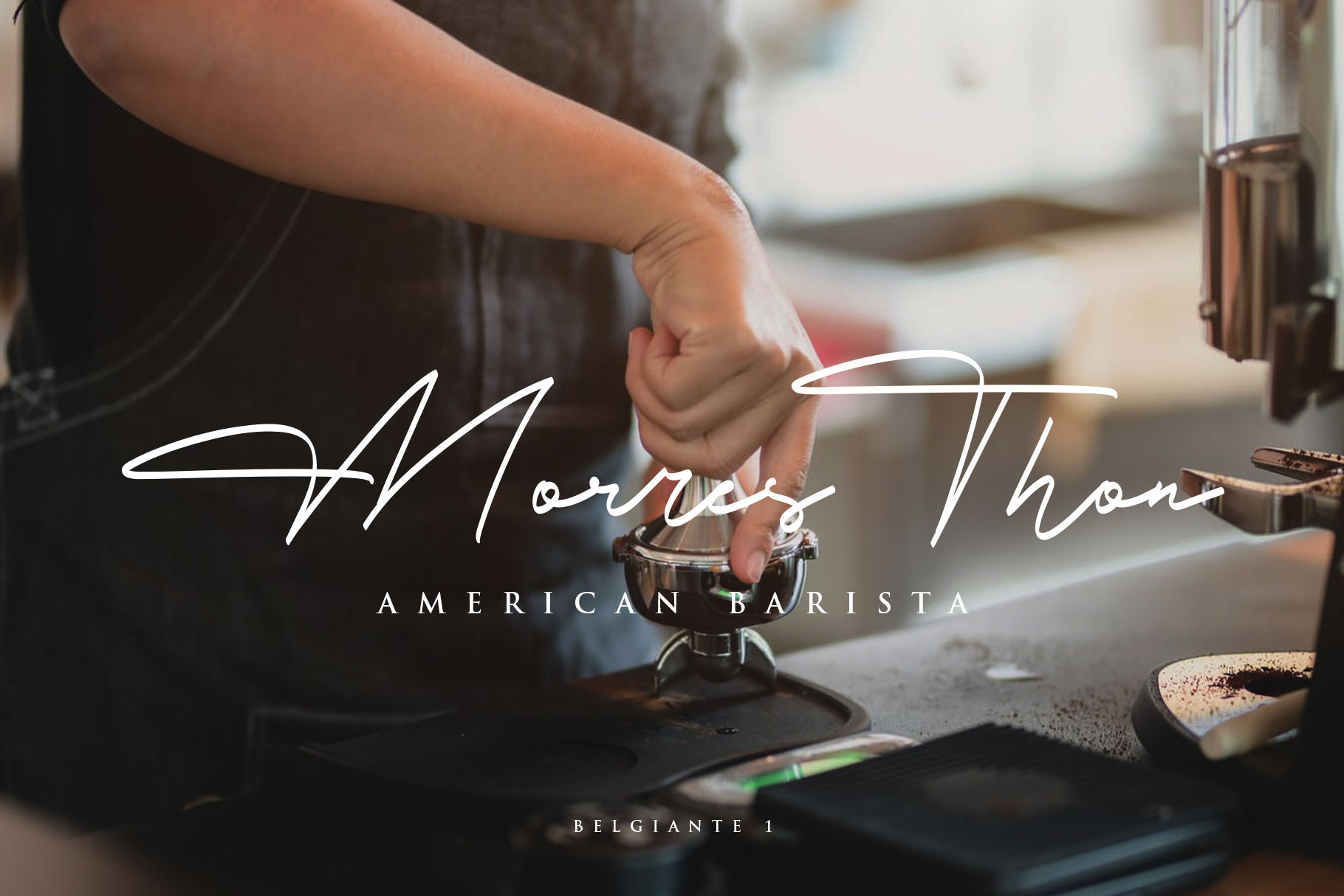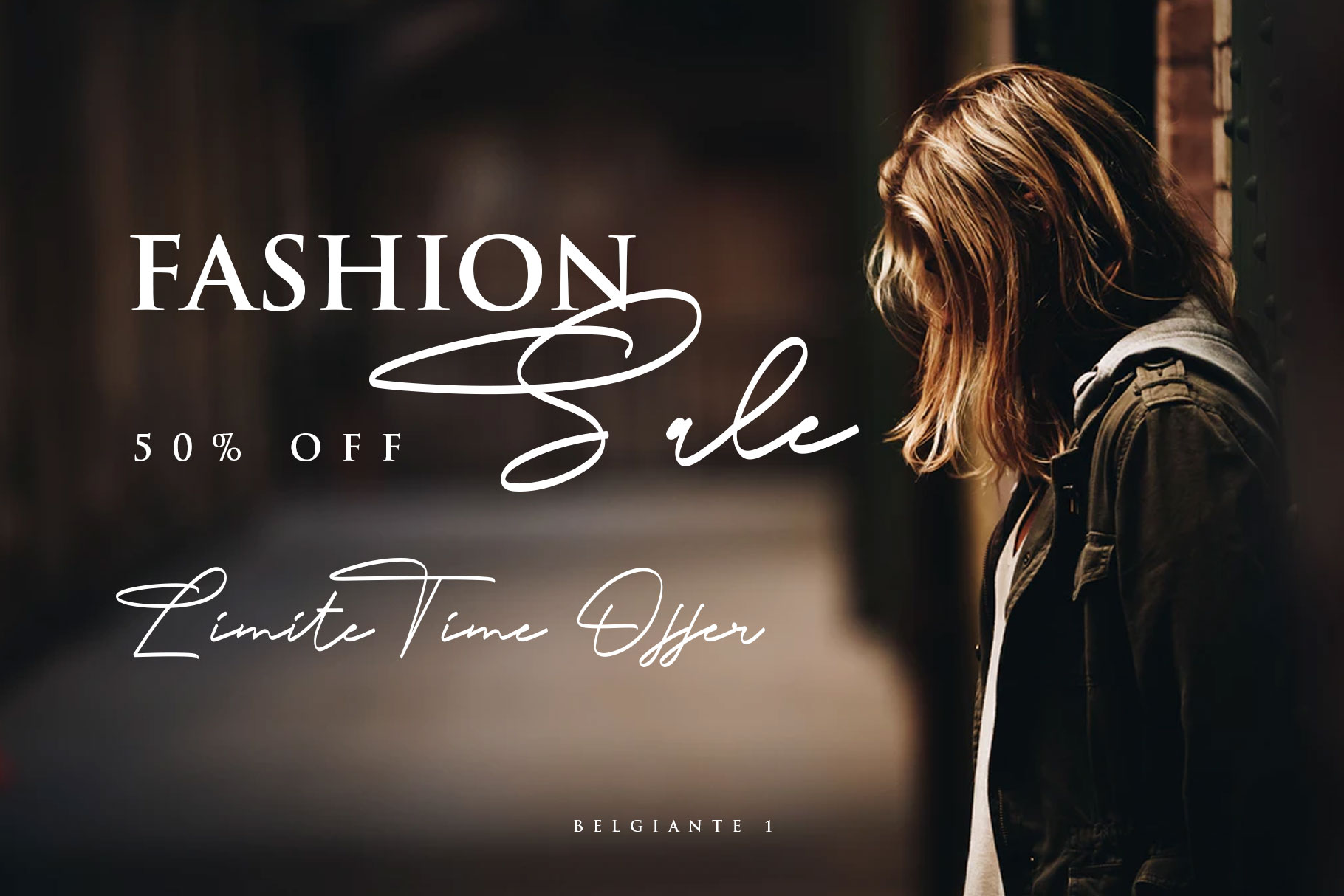
Belgiante Handwritten Font
Belgiante is modern style which can be interpreted professional. I make bergiante in two version you can choice what u want also i keep this font looks classy, readable, stylish, catchy and easy to use. Belgiante is the great choice for watermark on photography, signature or signature logo design, quotes, album cover, business card and many other design project. Belgiante is here to make your work to high level!!!
• Basic Latin A-Z and a-z